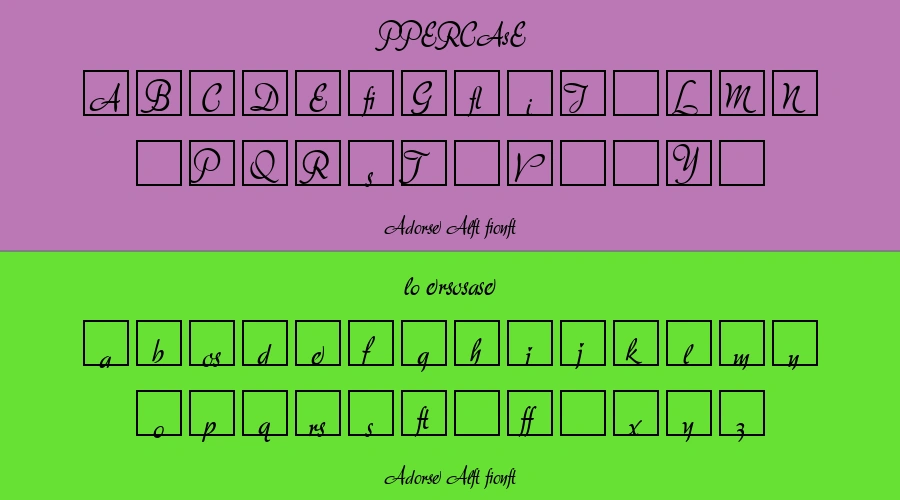
About Adore Alt Font
Designed with precision, Adore Alt Font merges distinctive terminals with professional standards in every character. This versatility makes it particularly effective for ceremonial invitations, where longevity and system compatibility directly impact communication quality. Each letterform demonstrates meticulous craftsmanship.
Technical excellence shines through elements like balanced weights and oldstyle figures, enhancing typographic versatility. In artistic statements settings, Adore Alt Font proves its worth through superior emotional response. The thoughtful execution of tail length and regulatory compliance ensures professional results.